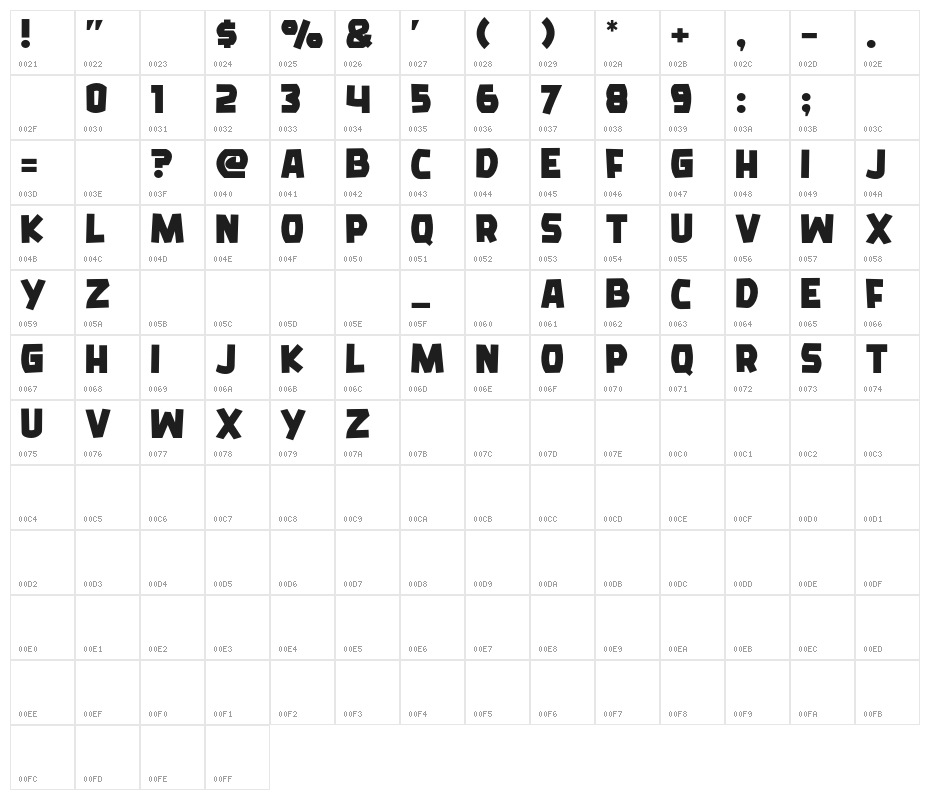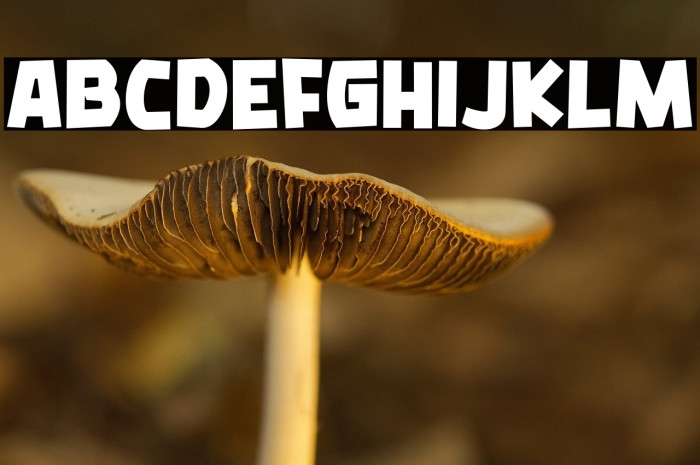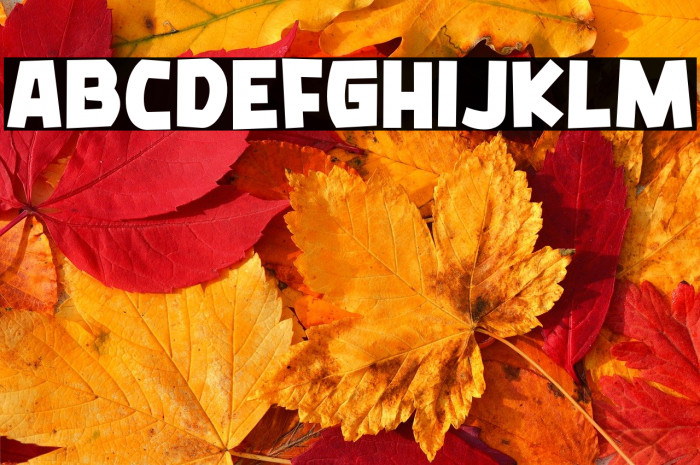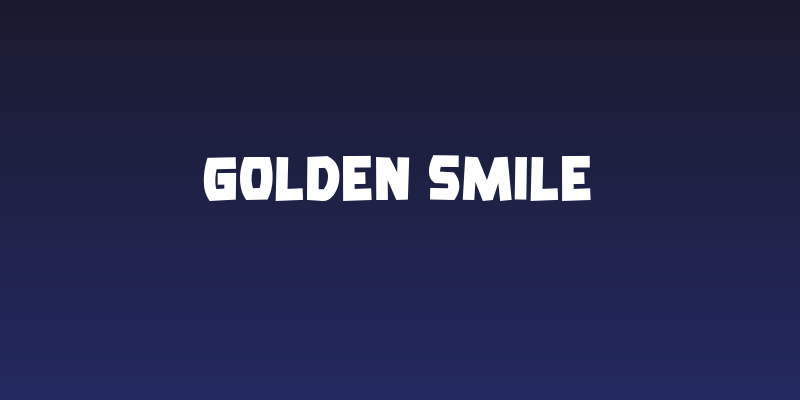
Golden Smile Font
Golden Smile Description
This font features bold, playful characters with a slightly irregular and whimsical design. The letters are thick and have a strong presence, making them ideal for attention-grabbing headlines. The style is reminiscent of hand-drawn or cartoon-like fonts, with each character having a unique flair that adds to the overall charm. The numbers and special characters maintain the same bold and quirky aesthetic, ensuring consistency across all text elements. This font is perfect for projects that require a fun and lively touch, such as children's books, playful branding, or creative posters.
| Proposed Projects | Ideal for children's books, playful branding, creative posters, and any project needing a lively touch. |